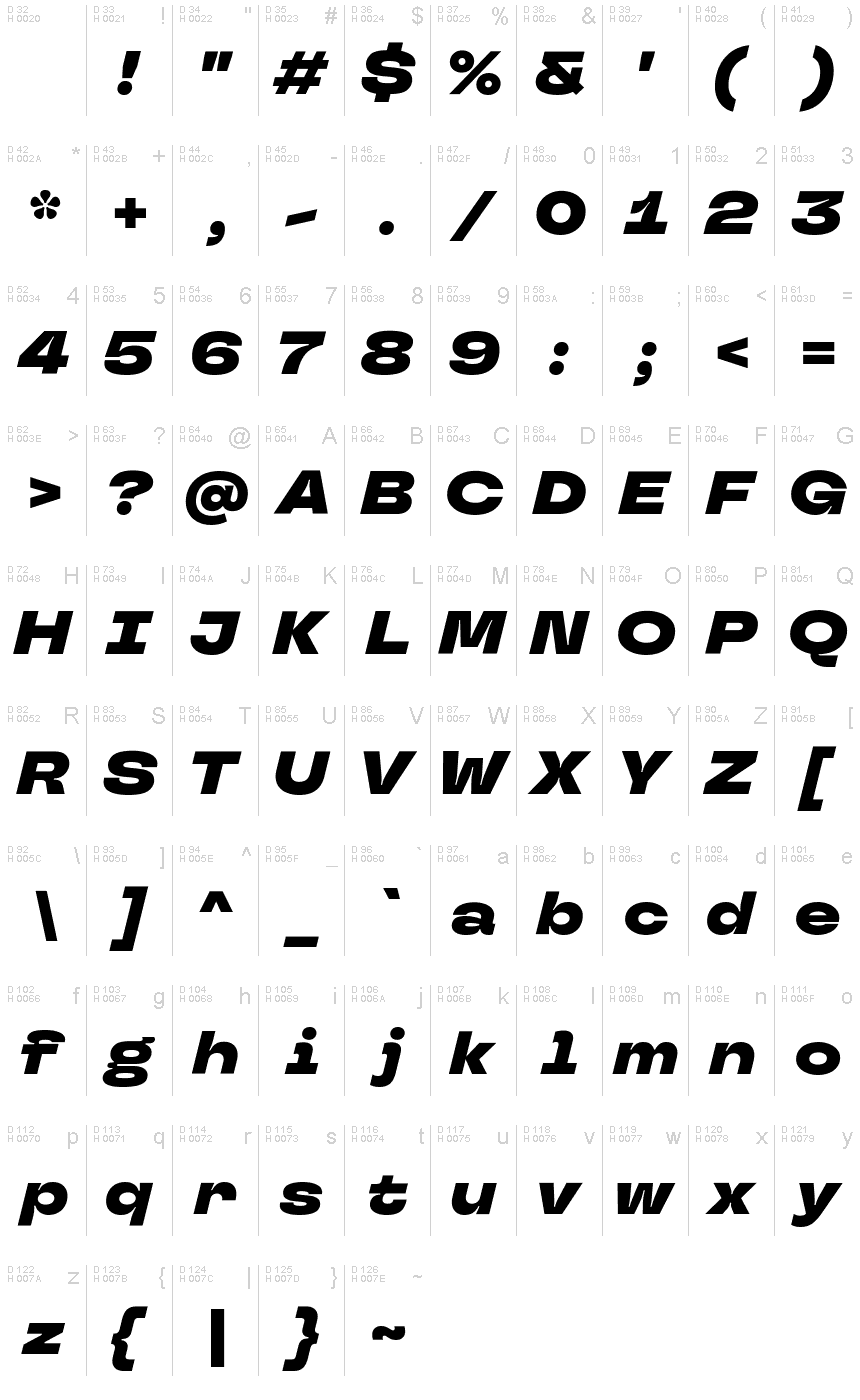
TT Travels Next Blc It is the perfect font for projects that require a bold and modern look. Its expanded width and sans serif style make it ideal for posters, logos, and headlines. The extra-bold weight adds a touch of confidence to any design while maintaining readability. This typeface from TypeType Foundry is easy on the eyes and can be used in a variety of designs such as travel magazines, fashion blogs, or even sports websites. TT Travels Next Blc It is the ideal choice for designers who want to make an impact with their typography.
TT Travels Next Trl Blc It — Presentazione del carattere
TT Travels Next Trl Blc
TT Travels Next Trl Blc It
Designed by Kseniya Karataeva, Yulia Gonina. Technical designers Yuriy Nako, Kirill Maslov, Ivan Gladkikh, Victor Rubenko.